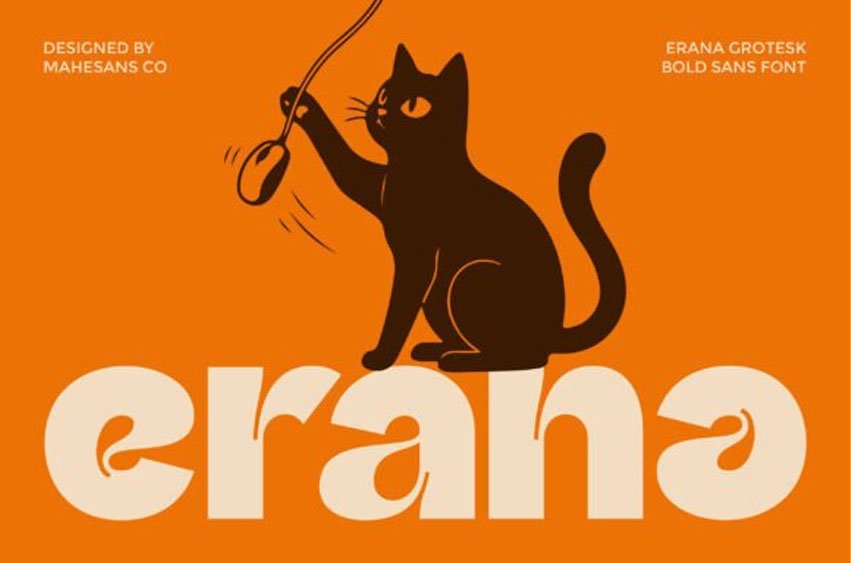
Erana Font is a bold retro-inspired sans serif font designed to bring strong personality and playful character to your designs. With its chunky shapes, smooth curves, and distinctive letterforms, this font delivers a perfect balance between modern grotesk structure and vintage charm.
Erana Grotesk works beautifully for bold headlines and eye-catching branding. The thick strokes and unique details give every word a strong visual presence while keeping the text highly readable.
This font is perfect for designers who want to create striking visuals with a friendly and modern retro vibe.